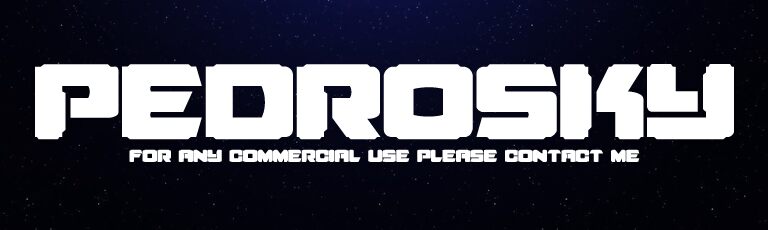
Pedrosky is a free futuristic display font with broad, weighty capitals and sharply engineered cutouts. Deep notches, clipped corners, and wedge-shaped gaps break up the dense silhouettes, giving the lettering the look of industrial plates or custom machine parts.
It turns titles into pieces of sci-fi interface graphics. The squared construction suits game branding, electronic music posters, and technology packaging, where its hard-edged forms support a mechanical theme. Those recurring slots and triangular cuts also echo vents and panel seams, making the letters useful within spacecraft or robot illustration.
Created in 2012 by Pedro Gutiérrez.